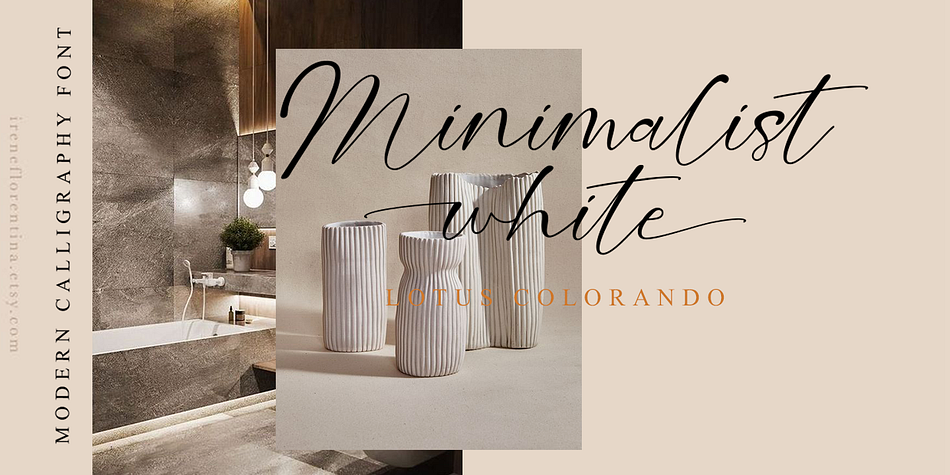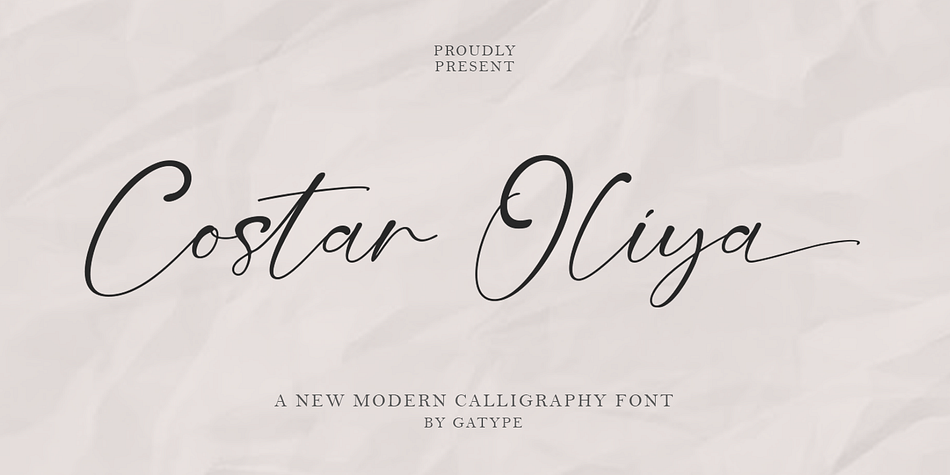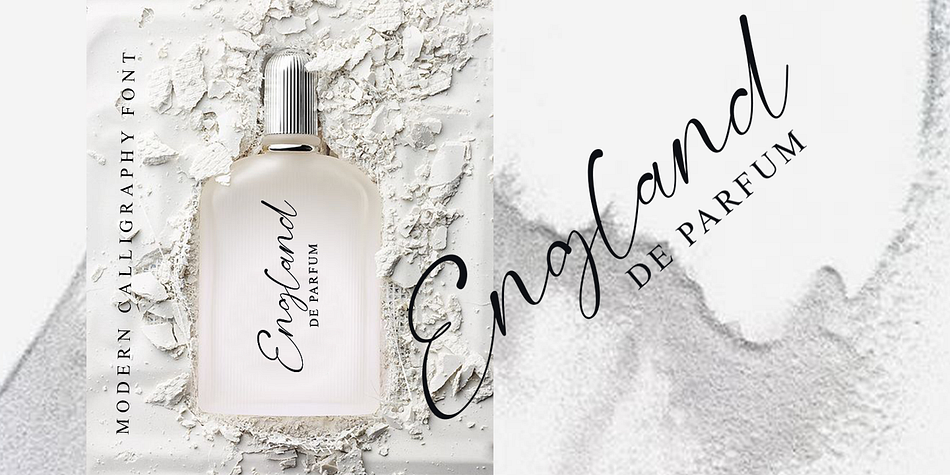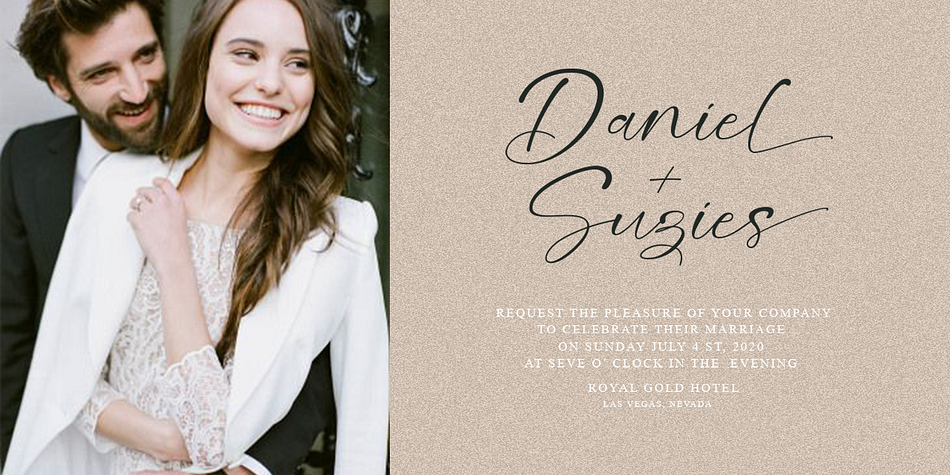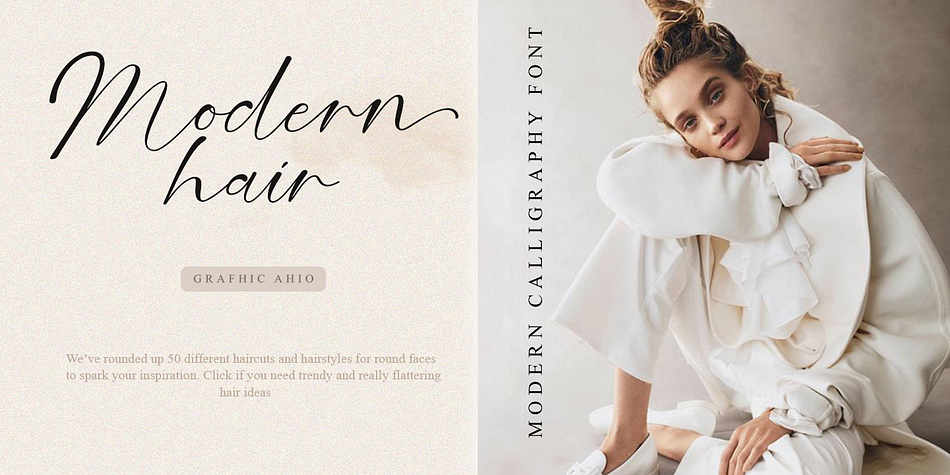
Costar Oliya
Costar Oliya is a modern calligraphy font family published by Gatype.
Costar Oliya is a modern calligraphy script font with fun characters with a bit of binder and alternatives. To give you extra creative work.. This font is great for logo designs, Social Media, Movie Titles, Book Titles, short text even long text fonts and is great for your secondary text fonts with sans or serif. Create stunning masterpieces with the Costar Oliya font. And this Font has provided PUA unicode (custom coded font). so that all alternative characters can be easily accessed in full by a craftsman or designer.